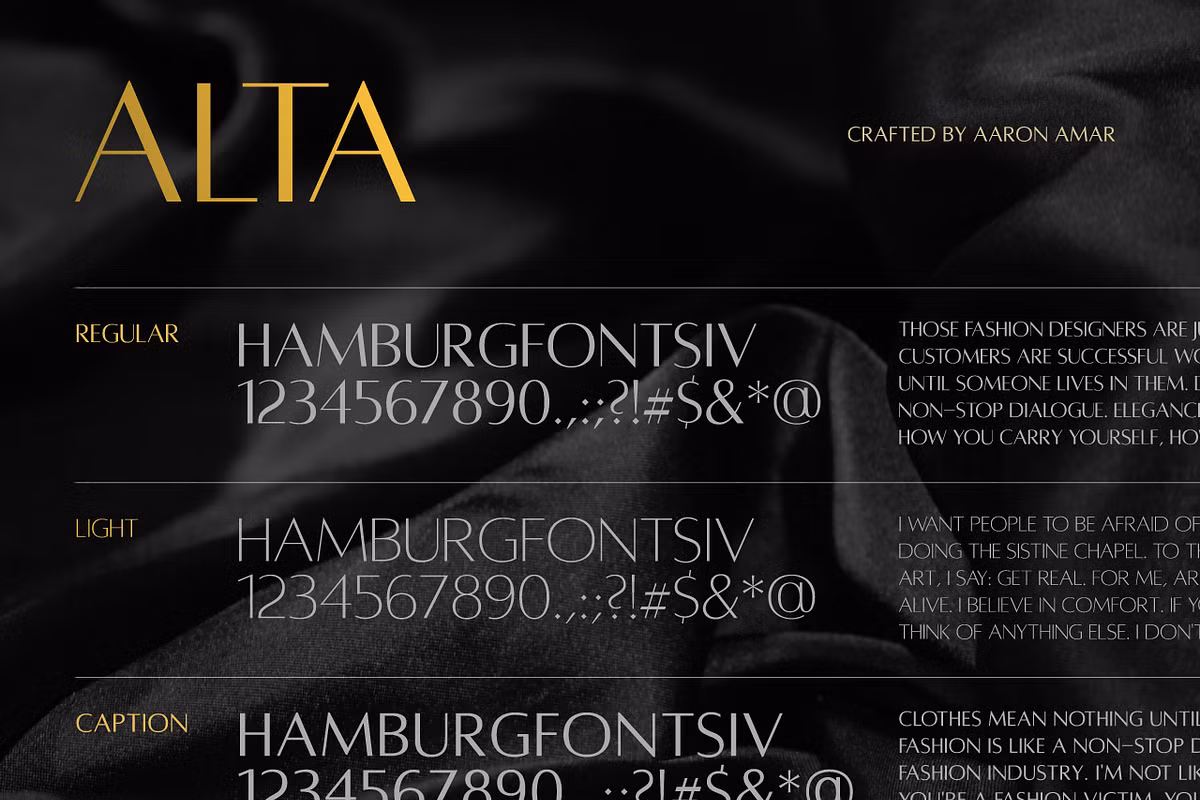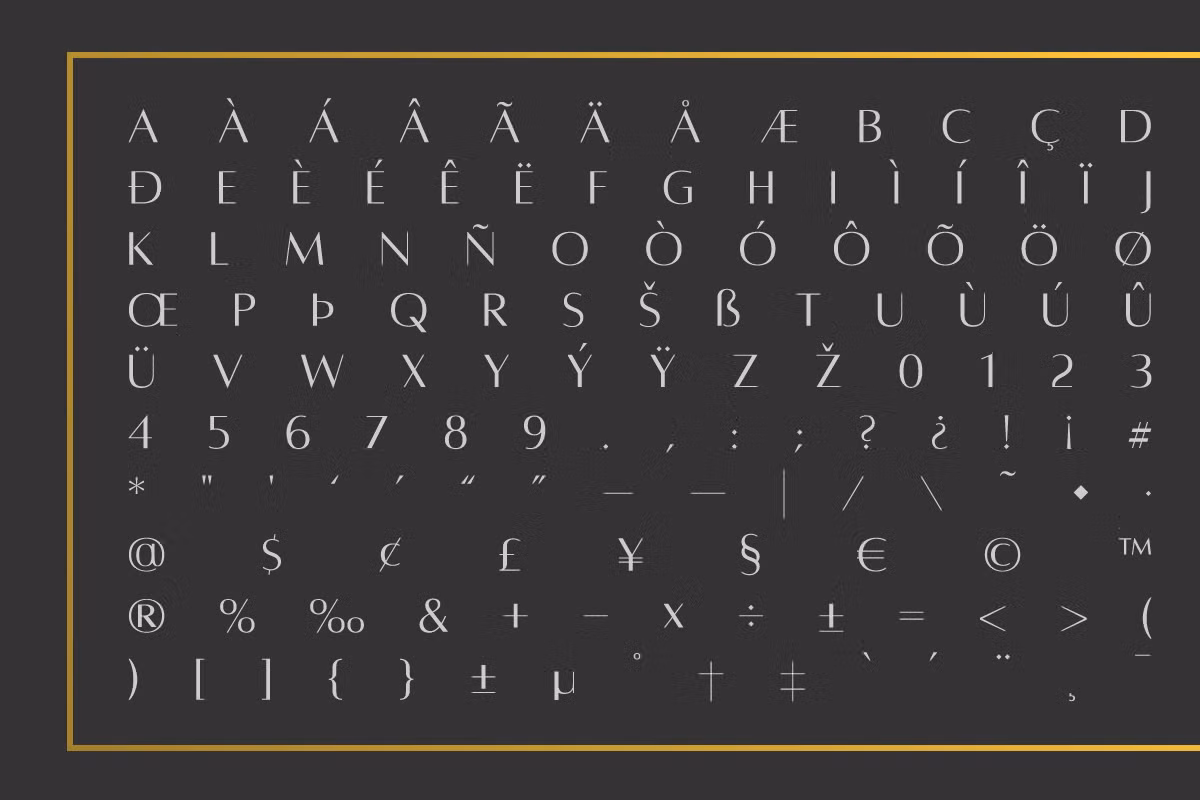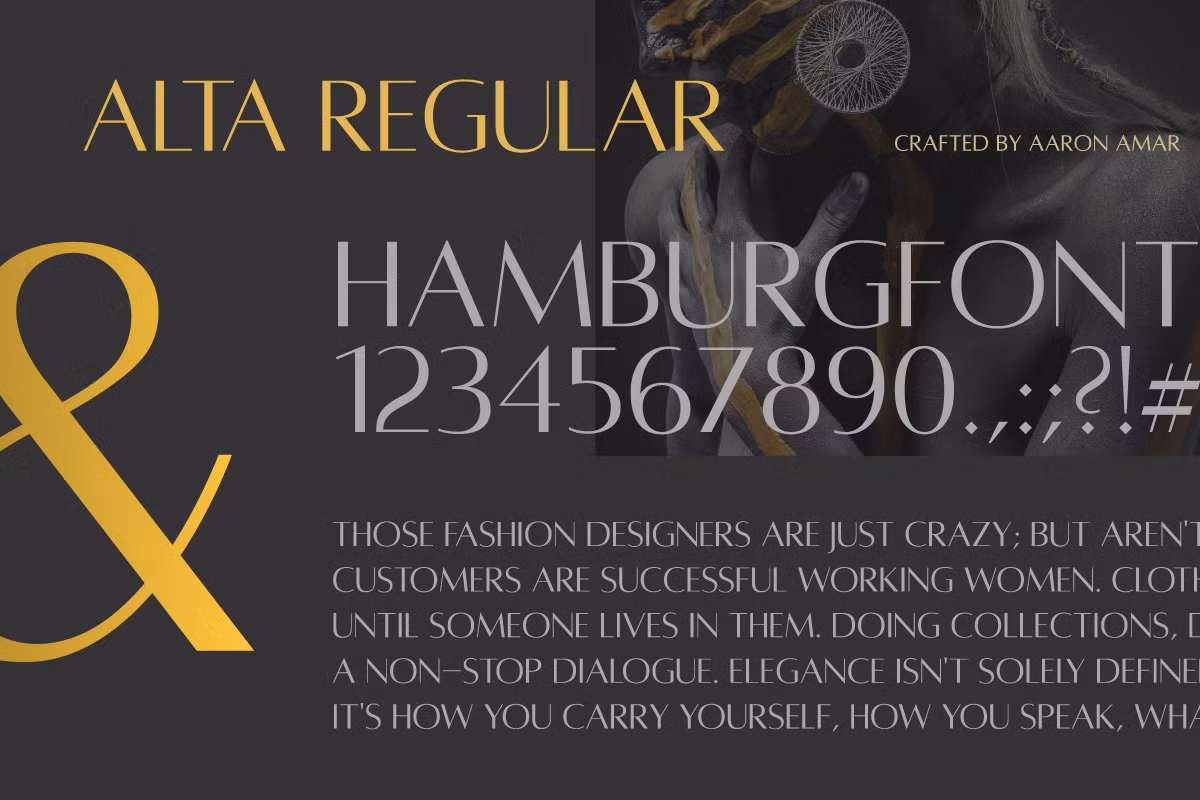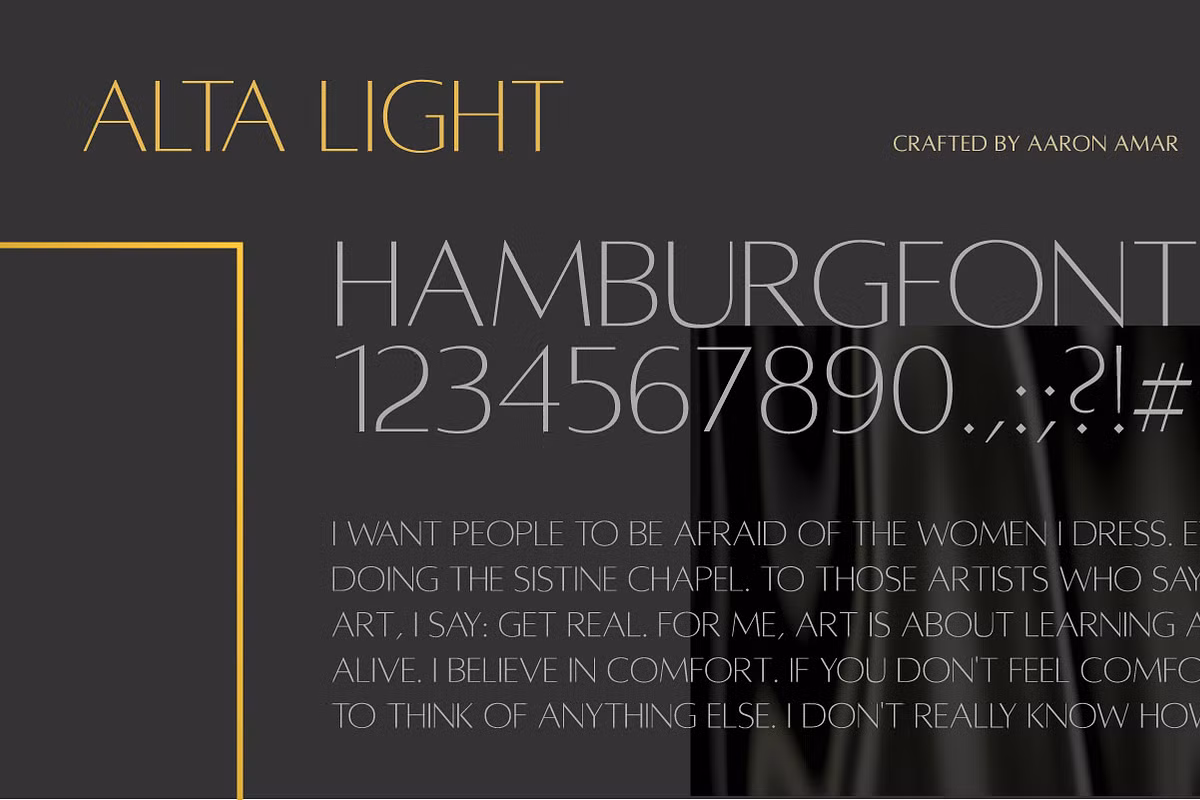
Alta Typeface font specimen showing the alphabet and numerals
• Styles: 3 (Caption, Light, Regular)
• Glyphs: 206
• Language support: Basic Latin (English), Western European
• OpenType features: kerning
• Designer: Aaron Amar
• Case: All caps (lowercase keys type capitals)
Alta Typeface character set (206 glyphs)
An Optima-inspired face, in capitals only
Amar describes Alta as “a Sans-Serif All-Caps Display Humanist Typeface based on the aesthetics of Optima Typeface, originally created by Hermann Zapf.” Optima is the classic sans with the elegance of a serif face, and Alta takes that idea into a display-only, capitals-only design.
The specimens on this page, rendered from the licensed font files, show where the Optima influence shows up:
• Stroke contrast. Strokes are not uniform. In the A, V, W and M one diagonal is heavy and the other close to a hairline, which gives the letters a carved, slightly calligraphic feel unusual for a sans.
• Classical proportions. The C, G, O and Q are broad and round, while the E, F, L and P are narrow, following the old Roman capital model rather than giving every letter the same width.
• Tall, light letters. The Regular weight is airy and upright, with plenty of white space inside each letter.
• A few flourishes. The J dips below the baseline, the Q’s tail is a long diagonal that crosses under the bowl, and the ampersand keeps a traditional looped form.
The lowercase keys produce the same capitals, so you cannot set mixed-case text in Alta.
The three Alta weights and file details
• Light: the thinnest, with hairline strokes for large, fashion-style headlines.
• Regular: the main style and the one used in our specimen.
• Caption: the third style. Caption styles are traditionally drawn for smaller sizes, and in our styles image it looks a little sturdier and more evenly weighted than Regular.
Alta covers Basic Latin and Western European characters, so English, French, Spanish, German, Italian and Portuguese text with accents should set correctly. Languages that need Central or Eastern European letters are not covered by our verified files.
The only OpenType feature is kerning, which fine-tunes the space between pairs such as L and T or A and V. It applies automatically in almost every app. There are no ligatures, alternates or swashes, and nothing is stored in the Private Use Area. That keeps things simple: what you type is what you get, in Canva and Cricut Design Space as much as in Illustrator.
Where Alta works, and what to pair it with
The Gumroad page opens with “Get high on fashion with Alta Typeface”, and fashion is a natural fit: lookbook covers, boutique signage, perfume and cosmetics packaging. The listing also suggests branding, editorial headlines, advertising and web headers. Because it sets in capitals only, keep lines short and give them a little extra letter-spacing; tracked-out capitals in the Light weight look especially refined.
Alta needs a partner with lowercase for anything longer than a heading:
• EB Garamond for magazine-style body text with the same classical roots.
• Source Sans 3 for websites and interfaces where clarity matters most.
• Cormorant Italic for a single elegant accent word beside Alta capitals.
Does Alta have lowercase letters?
No. It is an all-caps design; lowercase keys give capitals.
Who designed Alta?
Aaron Amar, who based it on the look of Hermann Zapf’s Optima.